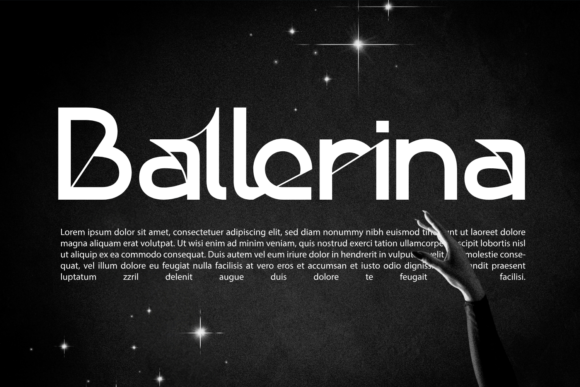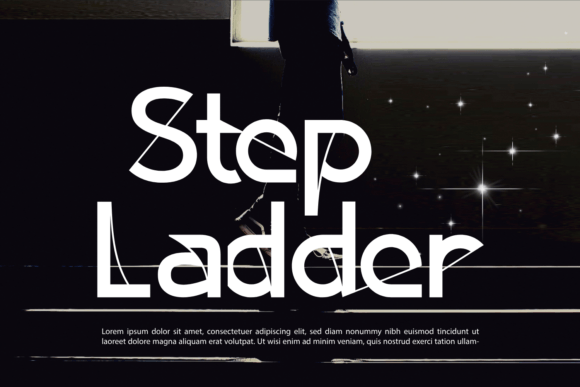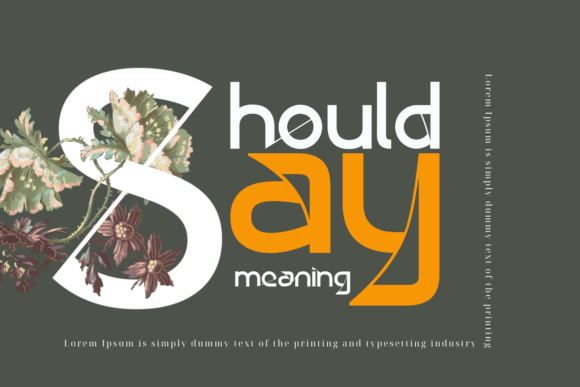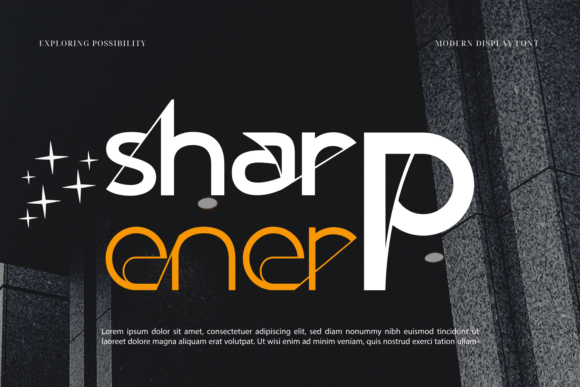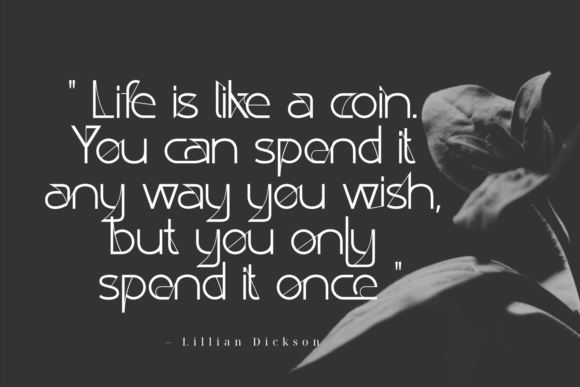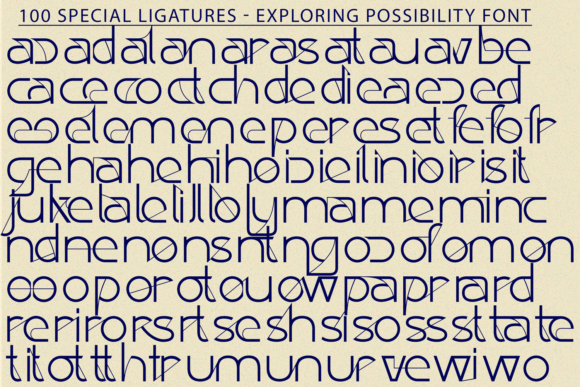
Exploring Possibility Font: Elevate Your Design with Elegance and Sophistication
In the world of typography, fonts play a crucial role in conveying the tone and personality of a brand. For designers and crafters seeking to make a statement, Exploring Possibility Font is a game-changer. This sophisticated display font masterfully blends intricate flourishes with Art Deco style, exuding an air of elegance and luxury.
A Sleek Modern Display Font
Exploring Possibility Font is a sleek modern display font that effortlessly combines straight lines with subtle curves, creating a unique and sophisticated look. Its modern yet timeless design ensures that your content stands out with a touch of class and sophistication. Whether you’re working on website headers, logos, corporate projects, magazines, or modern-related branding, this font is the perfect choice.
Key Features of Exploring Possibility Font
• Intricate Flourishes: The font’s intricate flourishes add a touch of luxury and sophistication, making it perfect for high-end branding and design projects.
• Art Deco Style: The font’s Art Deco style influence gives it a unique and distinctive look that’s sure to turn heads.
• Modern yet Timeless: The font’s modern design ensures it stays relevant, while its timeless elements prevent it from going out of style.
• Versatile: Exploring Possibility Font is perfect for a wide range of design projects, from website headers to corporate branding.
Exploring Possibility Font is a versatile font that’s perfect for designers and crafters looking to elevate their work. Whether you’re creating a logo, website header, or corporate branding materials, this font is sure to make a statement. Its unique blend of modern and classic elements ensures that your design stands out from the crowd.
Why Choose Exploring Possibility Font?
There are many reasons why Exploring Possibility Font is the perfect choice for your next design project:
• Elegance: The font’s elegant design ensures that your content looks sophisticated and refined.
• Versatility: The font’s versatility makes it perfect for a wide range of design projects.
• Timeless: The font’s timeless design ensures that it stays relevant for years to come.
• Unique: The font’s unique blend of modern and classic elements ensures that your design stands out from the crowd.
Tips for Using Exploring Possibility Font
To get the most out of Exploring Possibility Font, here are a few tips:
• Use it as a display font: Exploring Possibility Font is perfect for display purposes, such as website headers, logos, and corporate branding.
• Pair it with a simple font: Pairing Exploring Possibility Font with a simple font ensures that your design doesn’t get too cluttered.
• Experiment with colors: The font’s elegant design looks great in a variety of colors, so don’t be afraid to experiment.
Exploring Possibility Font is a sophisticated display font that’s perfect for designers and crafters looking to elevate their work. Its unique blend of intricate flourishes and Art Deco style creates an elegant and luxurious impression, making it perfect for high-end branding and design projects. With its modern yet timeless design, versatility, and elegance, Exploring Possibility Font is the perfect choice for anyone looking to make a statement.